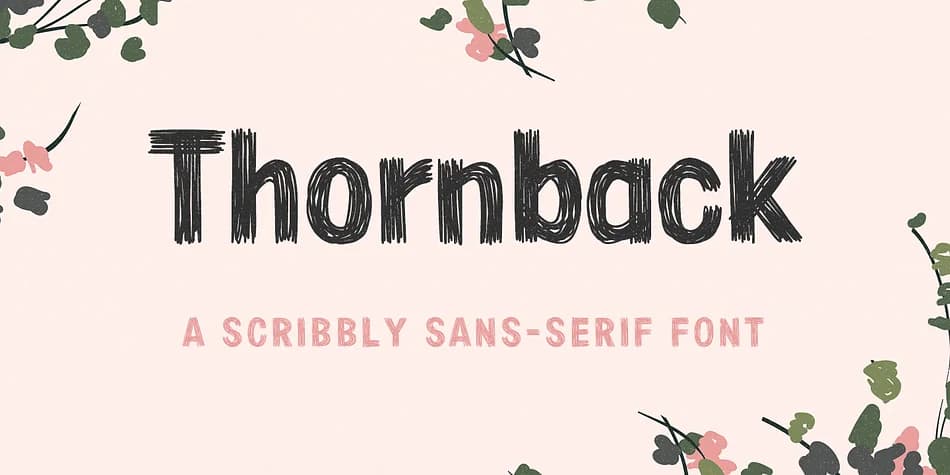
You're laying out a poster for a local coffee roaster, and you need type that feels hand-sketched rather than sterile and corporate. Thornback, Lauren Ashpole's hand-drawn display font, delivers exactly that effect. Built from quick, gestural strokes, the characters have a naturally irregular appearance that reads as genuinely sketched without sacrificing clarity or underlying structure.
The font excels at event posters, DIY wedding invitations, indie product packaging, and craft fair signage. Because the letterforms maintain consistent proportions beneath their casual appearance, it works equally well as a bold headline or within smaller text blocks, keeping legibility intact regardless of size. The characters feel homemade and approachable, which resonates with audiences who are tired of sterile corporate typefaces. It's the kind of font that makes straightforward text feel genuinely drawn by hand rather than output by a computer, bringing personality and warmth to work that might otherwise feel manufactured or impersonal.
What sets Thornback apart is its balance between visual interest and usability: the hand-drawn quality stays visible at display sizes while remaining legible when you scale it down for smaller text. The irregularity never feels chaotic or hard to read, no matter the application. Get it on Creative Fabrica and add that authentic, sketched aesthetic to your next project.
Thornback Font is a display font that shines as a display or heading face. Pair it with a clean sans-serif or serif font for body text โ the contrast creates a clear hierarchy while the two styles stay balanced and easy to read.